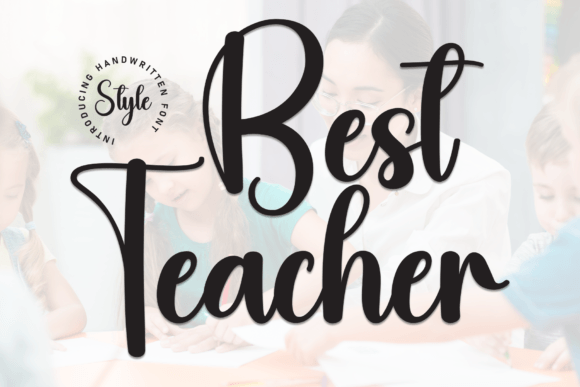
Welcome to the world of Best Teacher, the font that's as warm and inviting as a cozy Christmas morning. Inspired by the magic of the season, this script font is a delightful blend of elegance and playfulness, capturing the essence of handwritten letters from Santa himself.
Crafted with the utmost care by the talented William Jhody, Best Teacher is more than just a font; it's an experience. Its beautiful curves and swirls evoke a sense of nostalgia and wonder, transporting you back to a time when Christmas wishes came true.
With Best Teacher, you can bring the joy of Christmas to your creative projects. Imagine your holiday cards adorned with heartfelt messages written in this charming font, or your Christmas gift tags adding a touch of whimsy to your presents. Let Best Teacher be your creative companion as you craft enchanting invitations for your holiday gatherings, transforming ordinary words into works of art.
But Best Teacher isn't just for the holiday season. Its versatility extends far beyond Christmas, making it a font for all occasions. Use it to add a touch of fun and whimsy to birthday cards, create eye-catching social media posts, or design logos that exude warmth and charm. The possibilities are endless, limited only by your imagination.
So why settle for ordinary fonts when you can have Best Teacher? Let your creativity soar with this captivating script font, and make a statement that's as unique and memorable as you are. Join the countless others who have fallen in love with Best Teacher, and experience the joy of creating projects that are truly unforgettable.